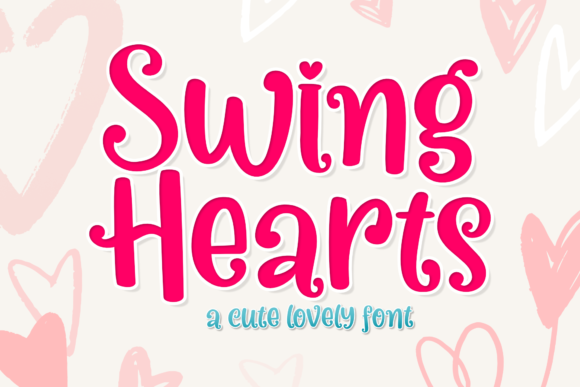
Introducing Swing Hearts Font – the perfect addition to any art or craft project! This beautiful display font, created by Holydie Studio, is the ideal font for boat lettering, featuring bold and playful letters that are sure to catch the eye.
But Swing Hearts is more than just a font for boats – it's also a font that can add a touch of romance and playfulness to any design. With its adaptable style and bold letters, Swing Hearts is perfect for creating beautiful designs that stand out from the crowd.
Whether you're creating invitations, greeting cards, or even just a cute sign for your home, Swing Hearts will help you bring your creative vision to life. Its cute and lovely style is sure to make anyone fall in love with your designs.